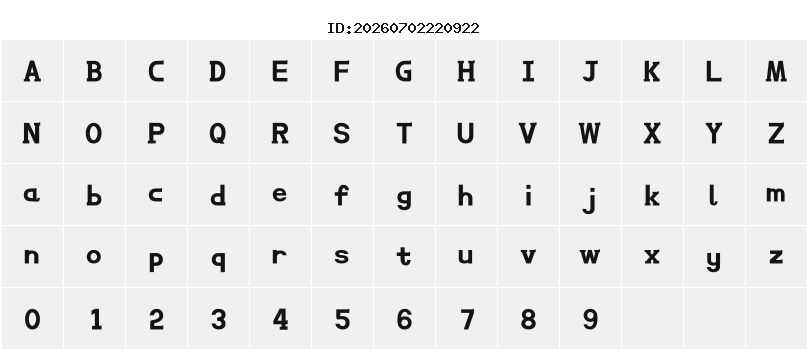
078-上首梦黑体 Preview
• Font Name: 078-上首梦黑体
• Font ID: 078-SS Meng Hei Ti:Version 6.00
• Full Font Name: 078-上首梦黑体
• Version: Version 6.00 October 28, 2022
• PostScript Name: 078-SSMengHeiTi
• Manufacturer: 上首造字
About 078-上首梦黑体.ttf
078-上首梦黑体.ttf is a modern, elegant sans-serif font designed for ultimate readability and visual harmony. Perfect for branding, headlines, web design, and print materials.